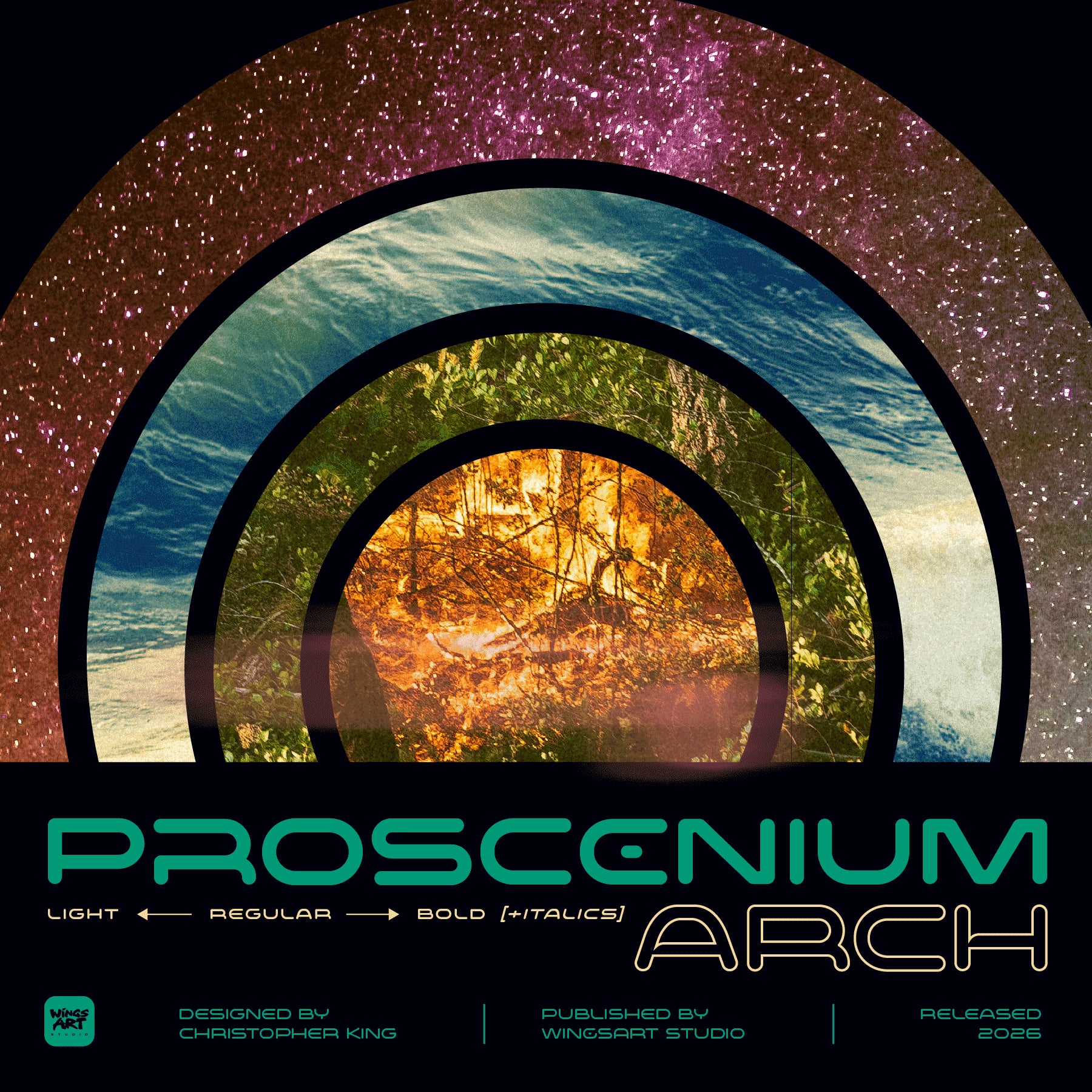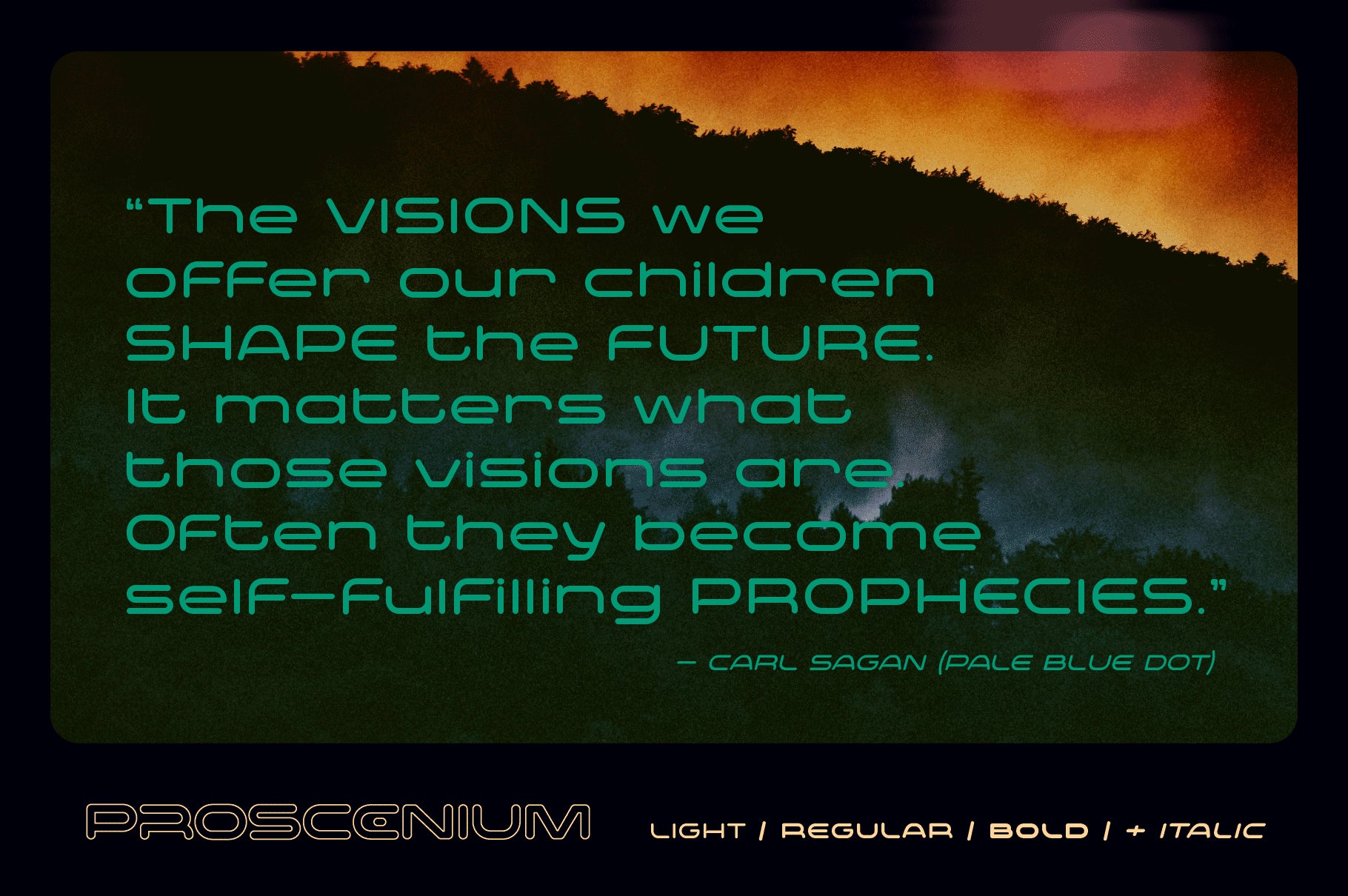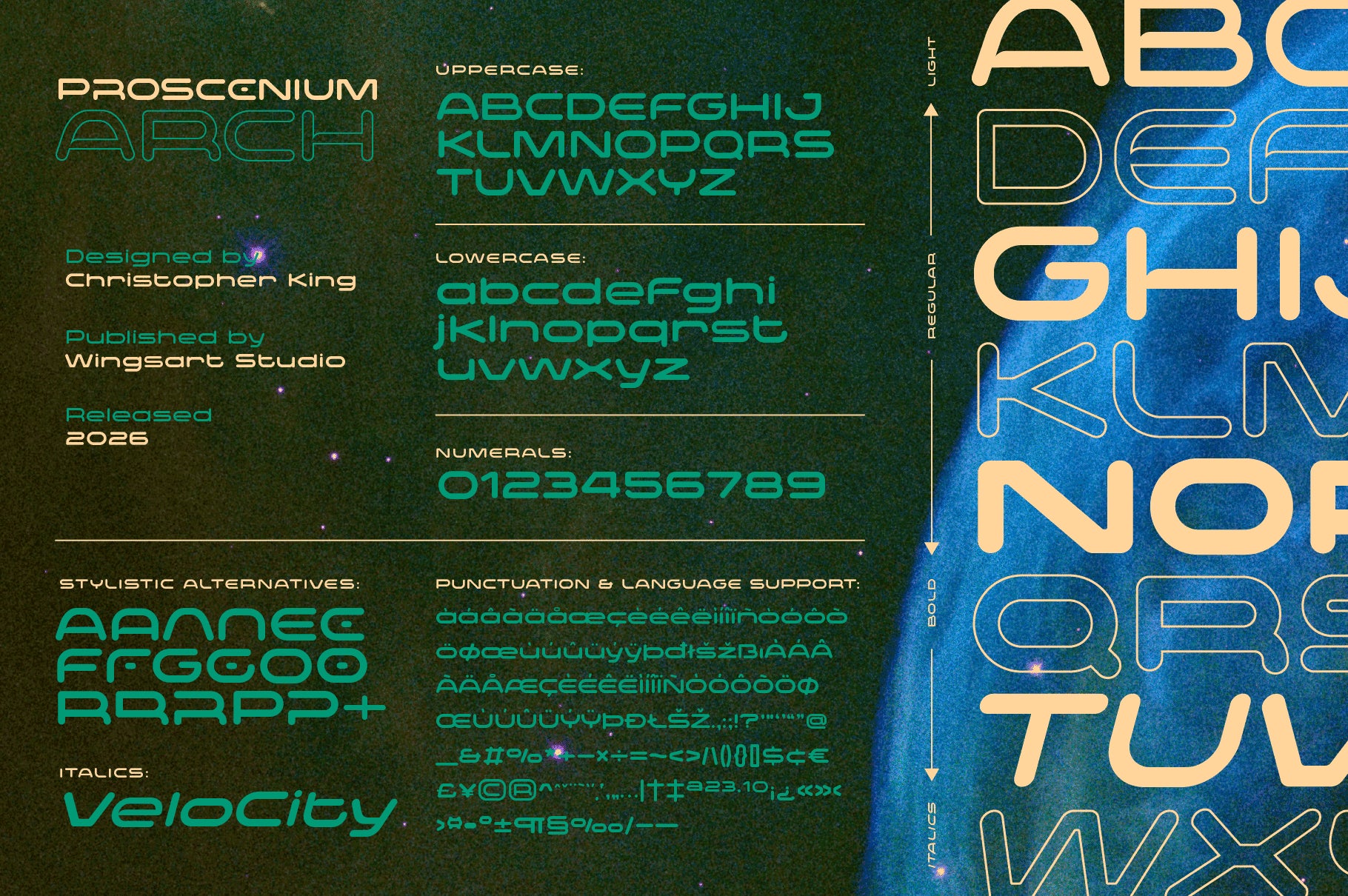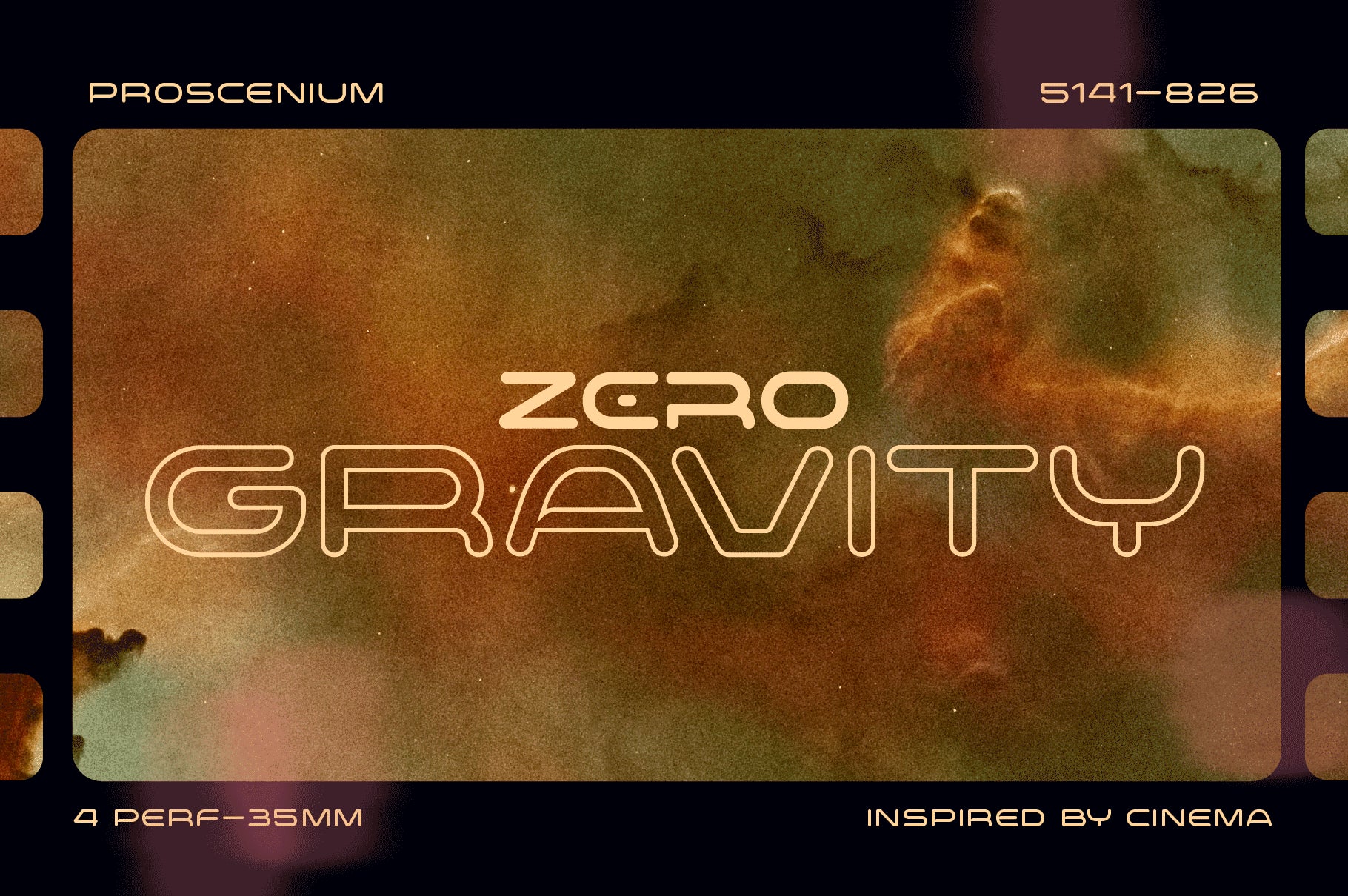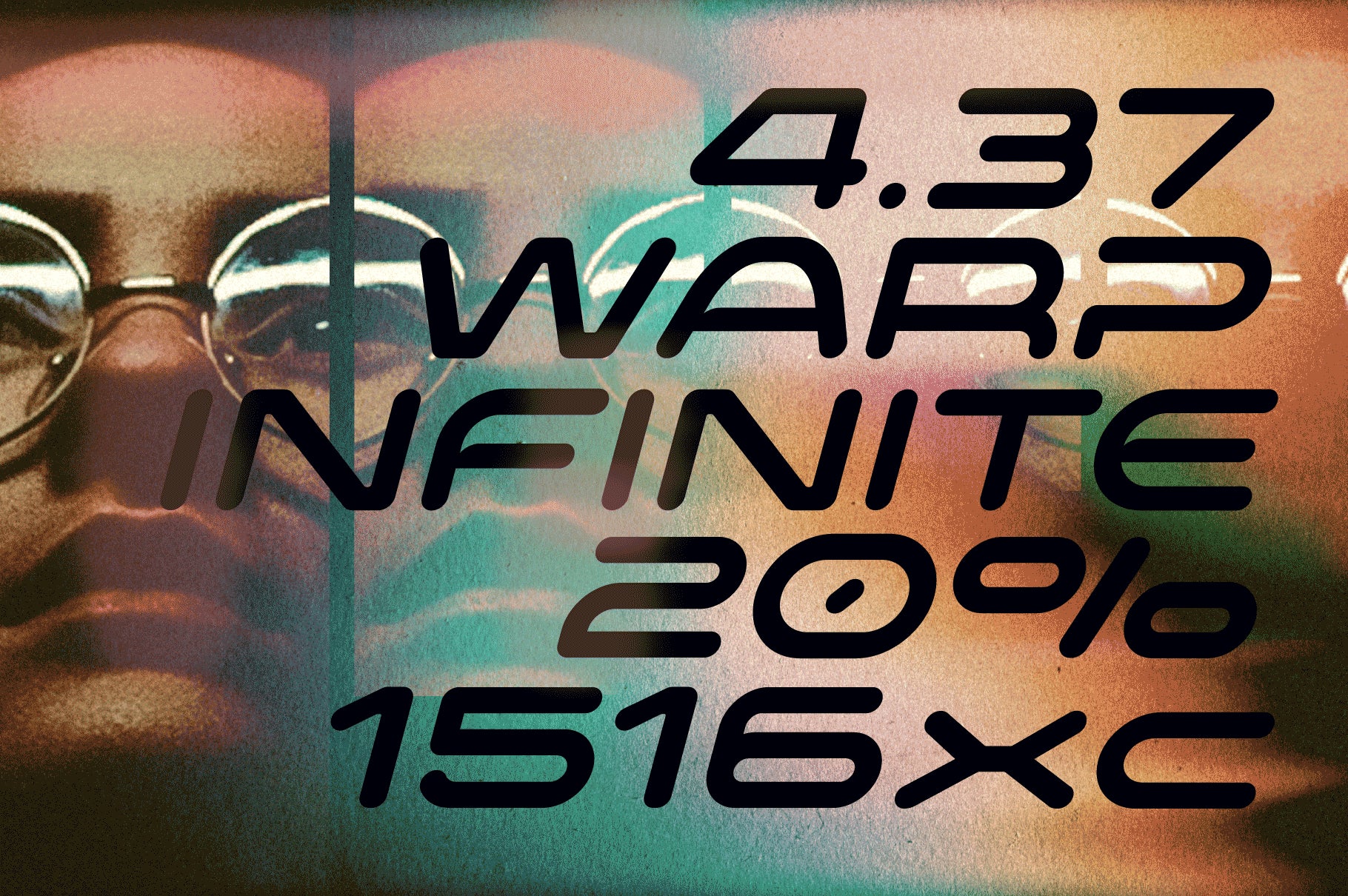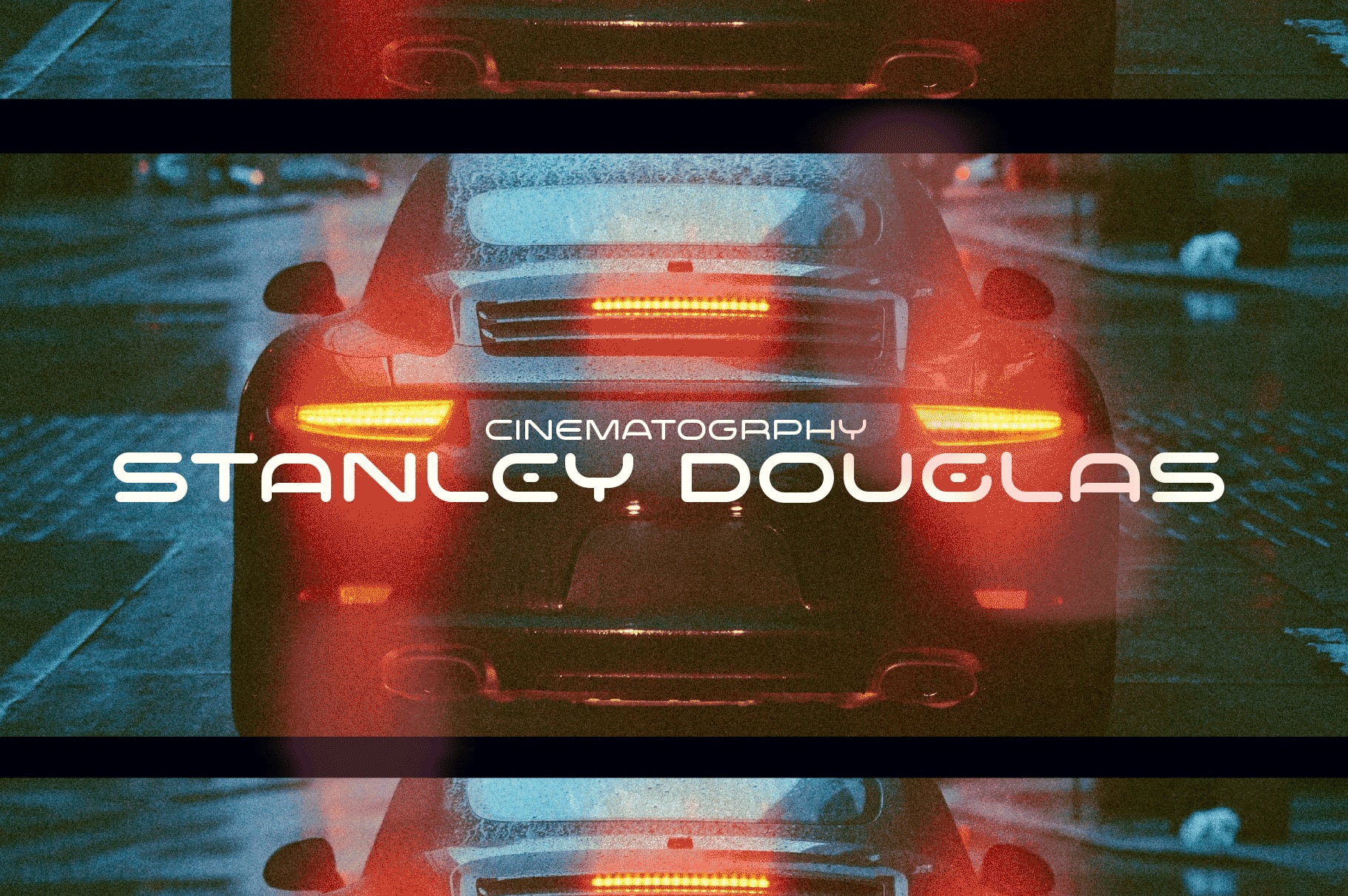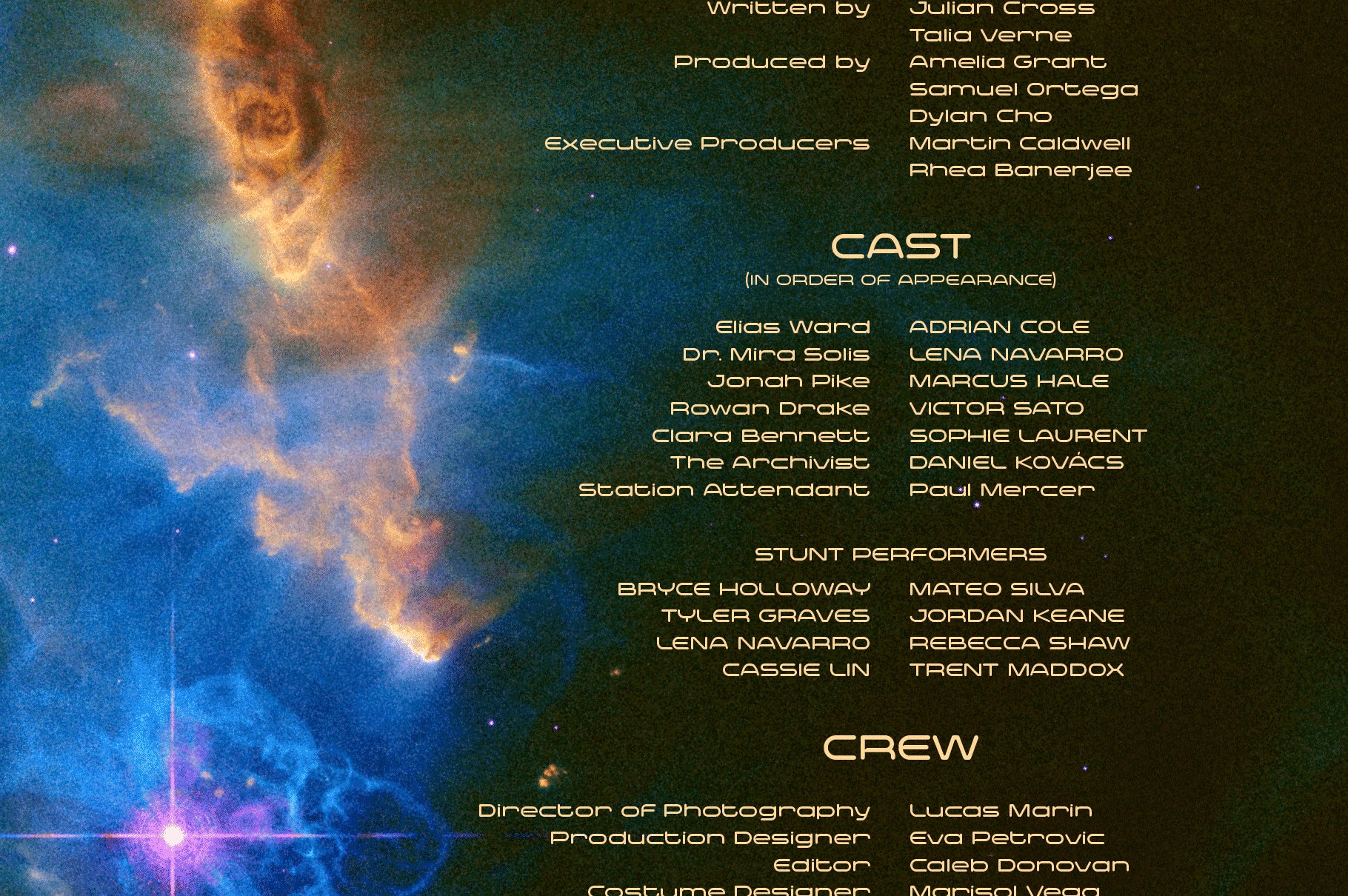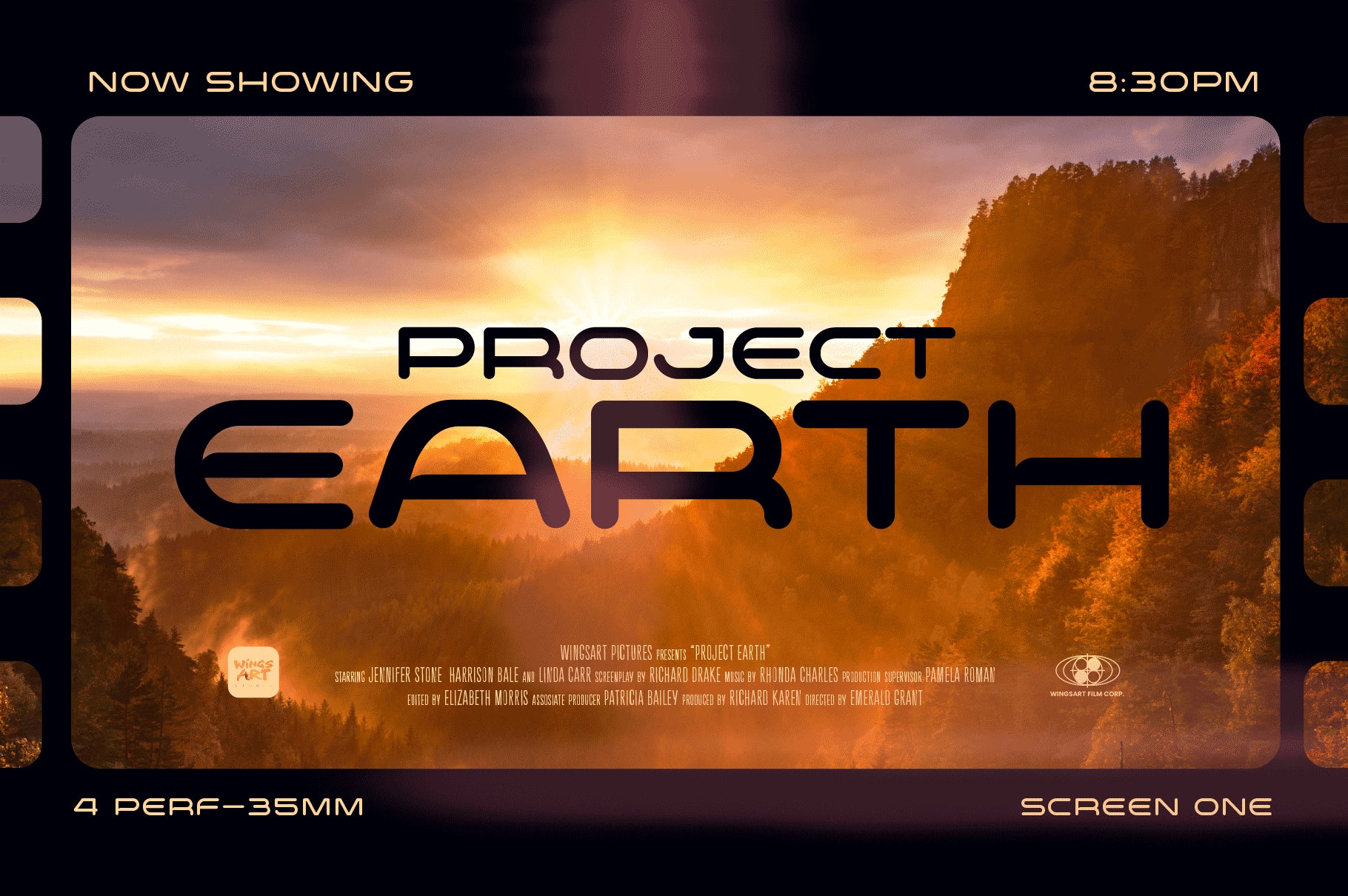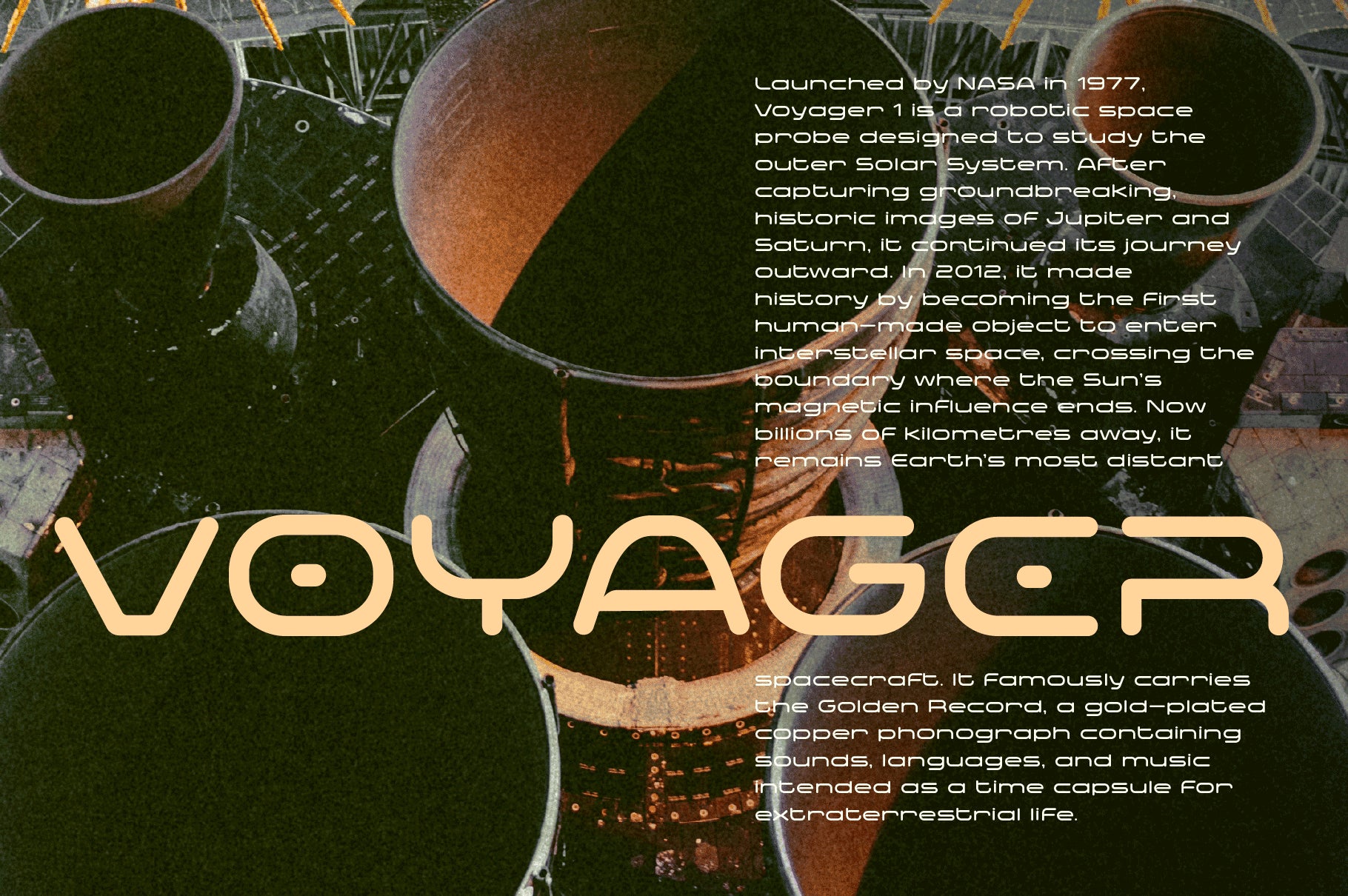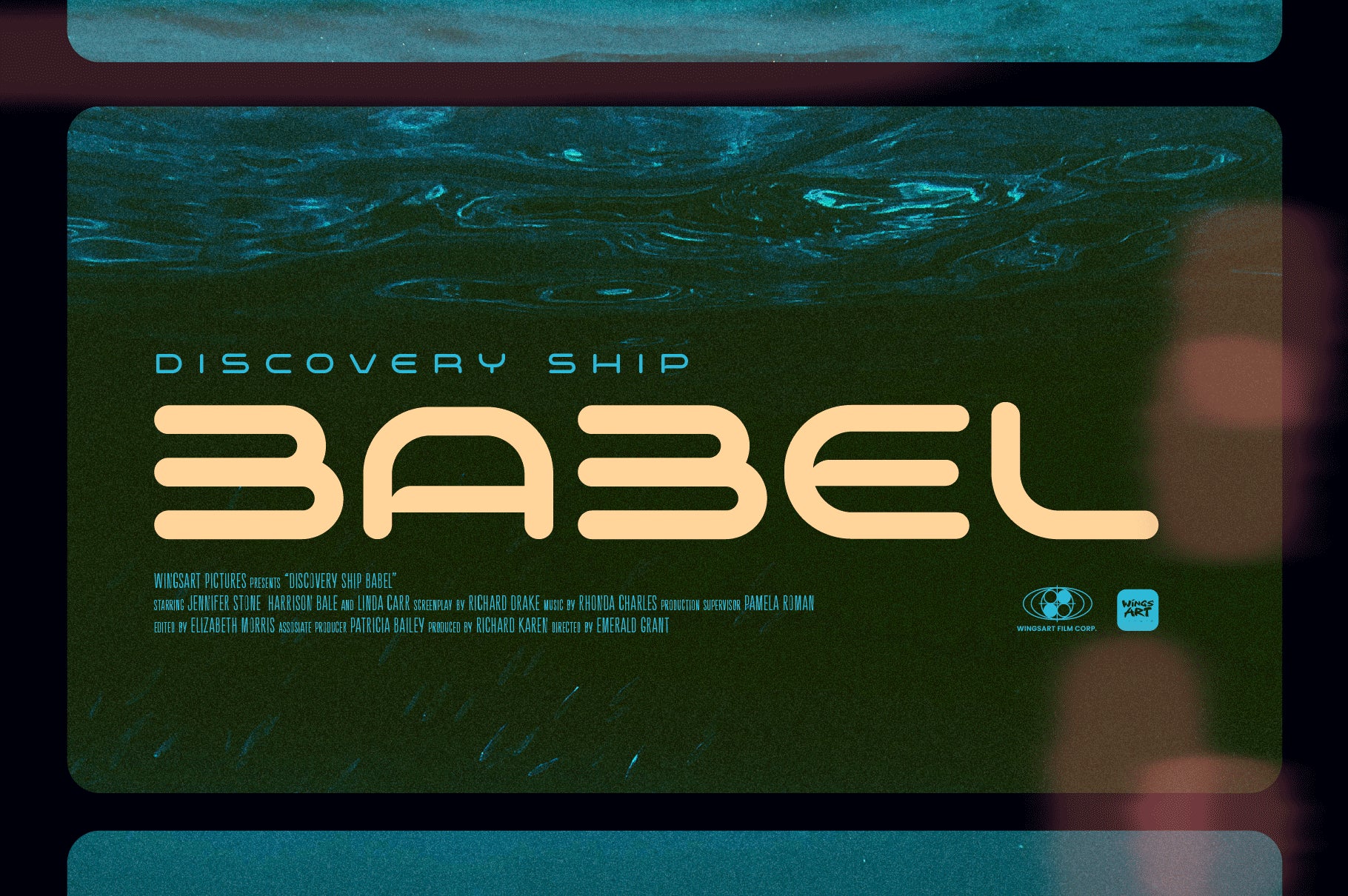
Proscenium Arch - An Ultra-Wide Cinematic Sci-Fi Font
Proscenium Arch is a wide format and futuristic font designed to complement the cinematic aspect ratio of big-screen sci-fi adventures.
Inspired by the typography of opening titles and credit sequences, Proscenium Arch was created to match letterbox-style aspect ratios, typical of 35, 65, or 70mm cinema film formats. It boasts a clean, legible style with design touches that lean towards ideas of technology and science fiction.
It works equally well across print and digital media, making for impactful headers or quotes for magazine editorials, album art, or social media.
It comes in three weights: Light, Regular, and Bold, along with italic styles, all including complete uppercase and lowercase alphabets, numerals, punctuation, symbols, and multilingual support. Also included are alternative ligatures that push the sci-fi vibes even further.
Proscenium Arch is an ultra-wide, futuristic font designed for cinematic applications, featuring a clean and legible style that aligns with letterbox aspect ratios typical of film formats. It includes three weights (Light, Regular, Bold) and italic styles, with complete uppercase and lowercase alphabets, numerals, punctuation, symbols, multilingual support, and alternative ligatures, available in OTF, TTF, and WOFF formats.